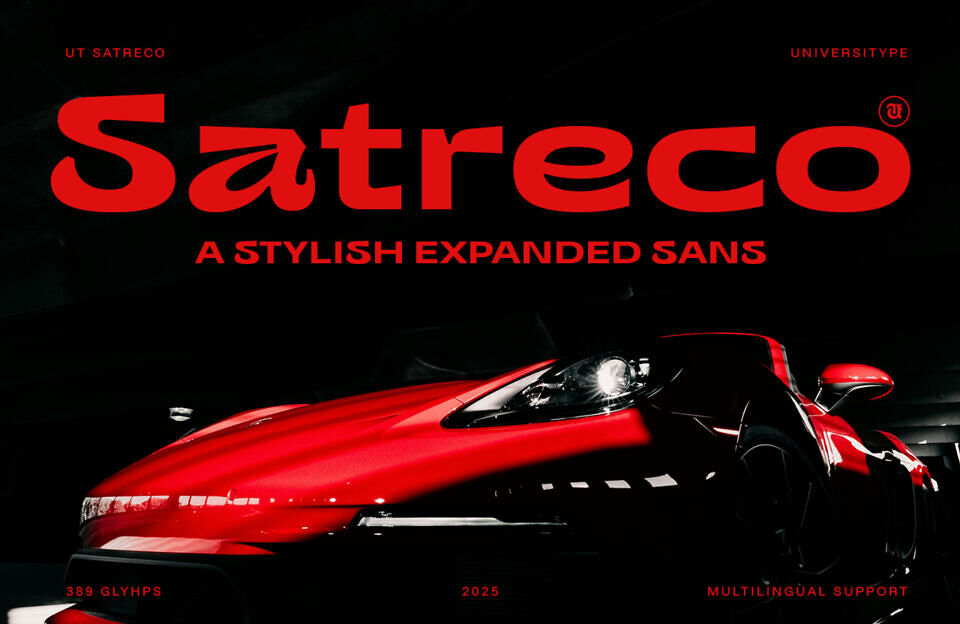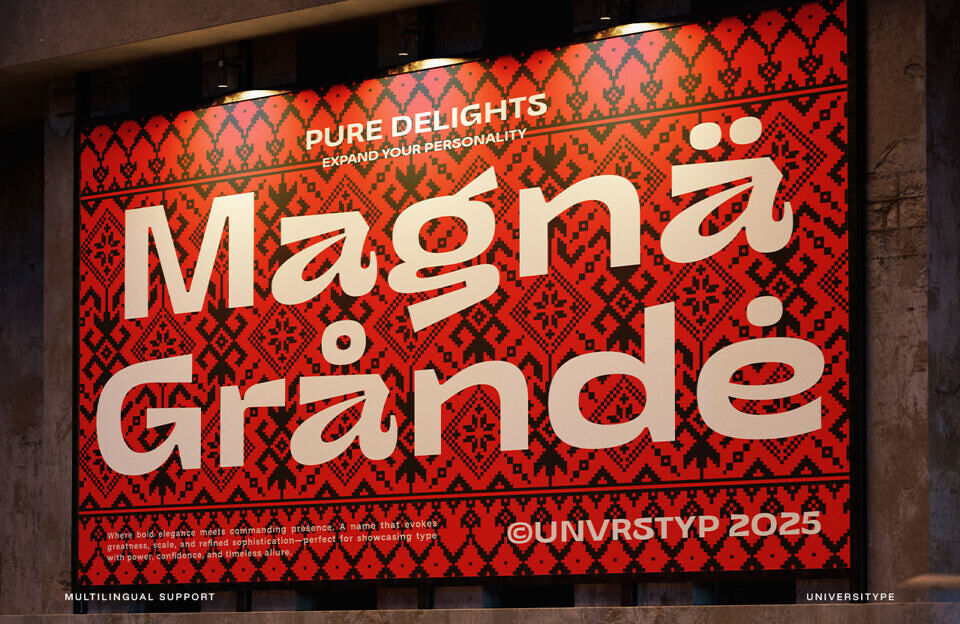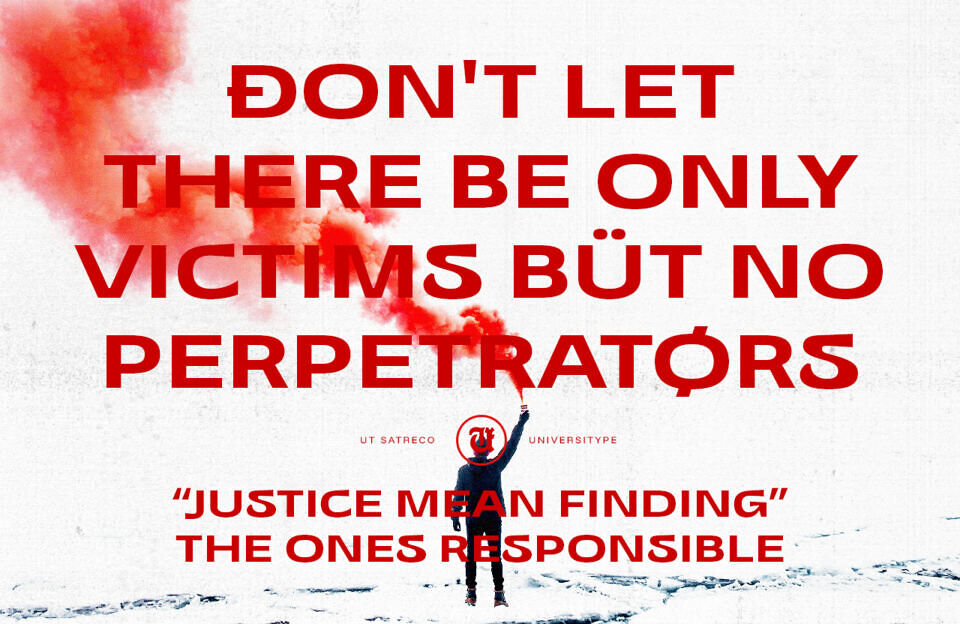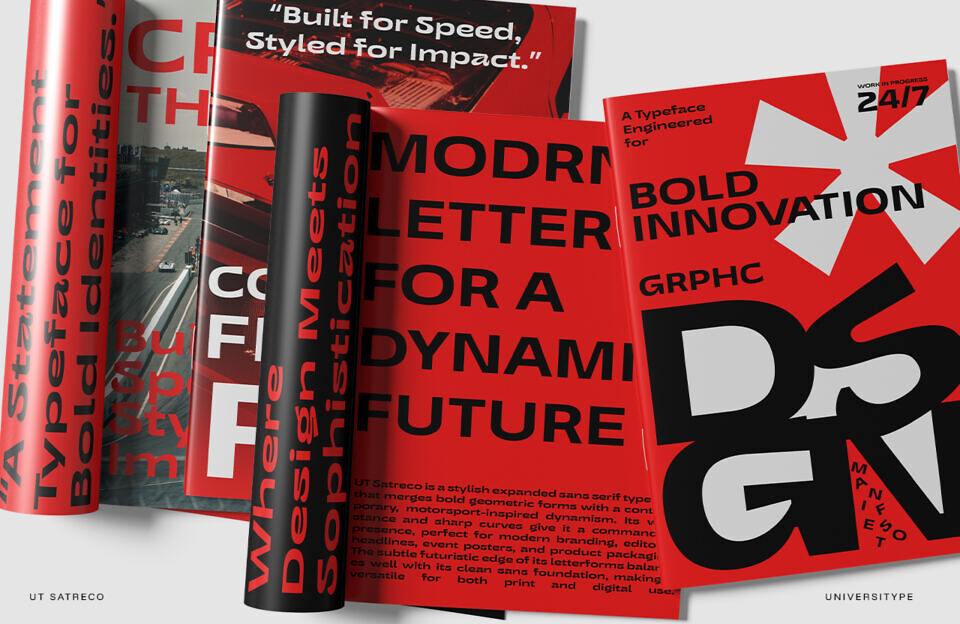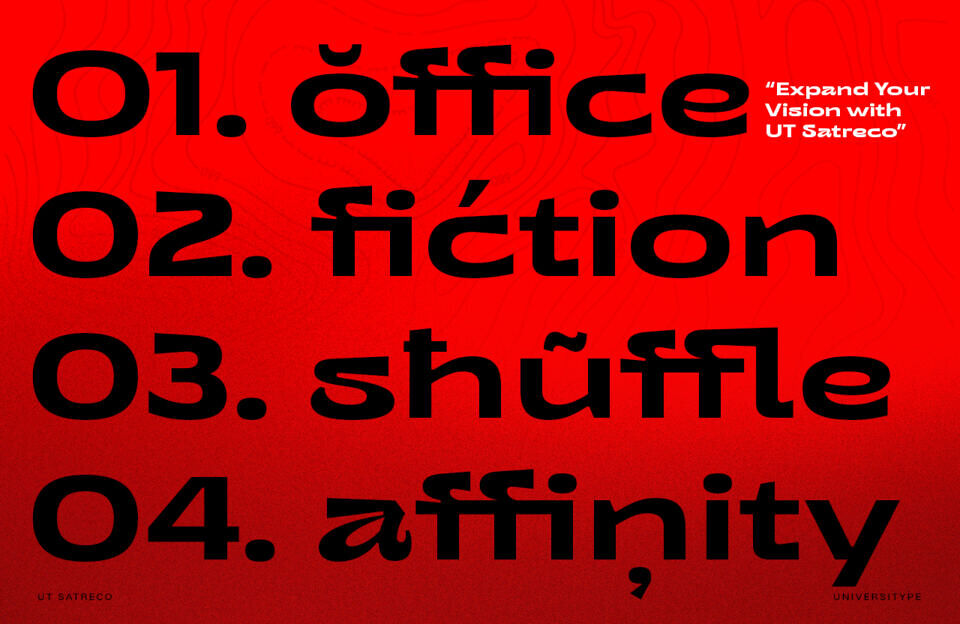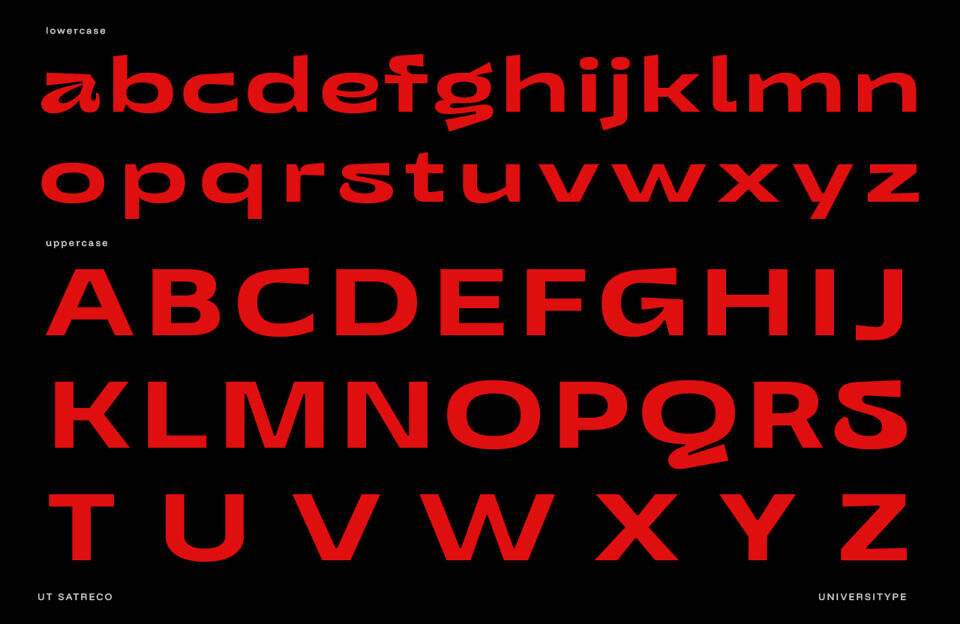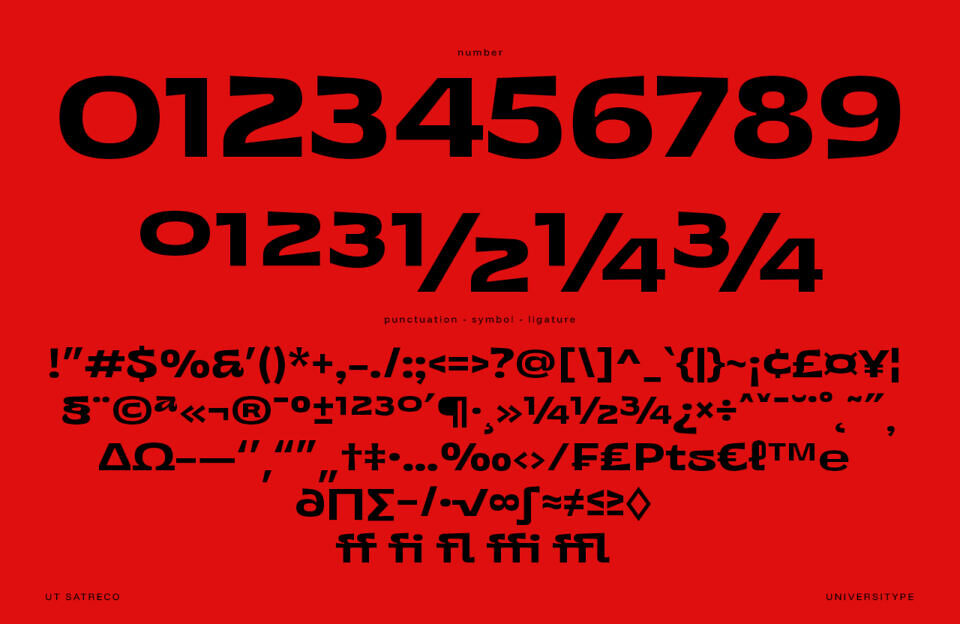
Presenting UT Satreco, a bold and modern sans-serif font designed for high-impact visual communication. This expanded typeface commands attention with its wide, powerful presence and futuristic aesthetic. Featuring sharp curves and a geometric structure, UT Satreco embodies speed and confidence, making it a statement piece for branding, posters, and headlines.
Its unique design ensures your message stands out, captivating audiences with an unapologetic and compelling style. Perfect for designers seeking a font that makes a powerful statement.